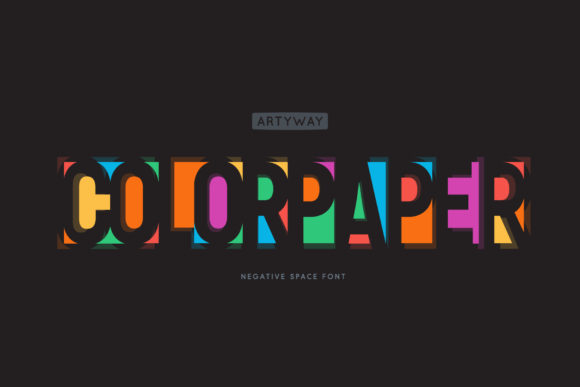
Introducing Color Paper Font: A Stunning Display Font
Are you looking for a unique and creative font to elevate your designs? Look no further than Color Paper Font, a beautiful display font that utilizes negative space to create a stunning visual effect. In this article, we’ll explore the features and benefits of Color Paper Font, and provide tips on how to get the most out of this amazing font.
What is Color Paper Font?
Color Paper Font is a display font that was created using the negative space of letters. This innovative approach gives the font a unique and eye-catching appearance that’s sure to grab attention. The font is perfect for designers and crafters who want to add a touch of creativity and personality to their work.
Key Features of Color Paper Font
• Unique Negative Space Design: Color Paper Font features a beautiful negative space design that creates a stunning visual effect.
• Highly Versatile: The font is perfect for a wide range of design projects, from posters and flyers to logos and branding.
• Colorful and Playful: The font is designed to be colorful and playful, making it perfect for projects that require a touch of whimsy and creativity.
Benefits of Using Color Paper Font
So why should you choose Color Paper Font for your next design project? Here are just a few benefits of using this amazing font:
• Adds Visual Interest: Color Paper Font adds a unique and eye-catching visual element to your designs, making them stand out from the crowd.
• Enhances Creativity: The font’s playful and colorful design encourages creativity and experimentation, helping you to think outside the box.
• Perfect for Branding: Color Paper Font is perfect for branding and logo design, helping you to create a unique and memorable identity for your business.
Tips for Using Color Paper Font
To get the most out of Color Paper Font, here are a few tips to keep in mind:
• Experiment with Color: Don’t be afraid to experiment with different colors and combinations to find the perfect look for your design.
• Play with Size and Scale: Color Paper Font looks great in a variety of sizes, so don’t be afraid to play with size and scale to add visual interest.
• Combine with Other Fonts: Try combining Color Paper Font with other fonts to create a unique and interesting visual effect.
Examples of Color Paper Font in Action
Here are a few examples of how Color Paper Font can be used in different design projects:
• Posters and Flyers: Use Color Paper Font to create eye-catching posters and flyers that grab attention.
• Logos and Branding: Use the font to create a unique and memorable logo for your business.
• Social Media Graphics: Use Color Paper Font to create colorful and engaging social media graphics.
Color Paper Font is a stunning display font that offers a unique and creative way to elevate your designs. With its negative space design and colorful, playful aesthetic, this font is perfect for designers and crafters who want to add a touch of personality to their work. By experimenting with color, size, and scale, and combining with other fonts, you can unlock the full potential of Color Paper Font and create amazing designs that leave a lasting impression.